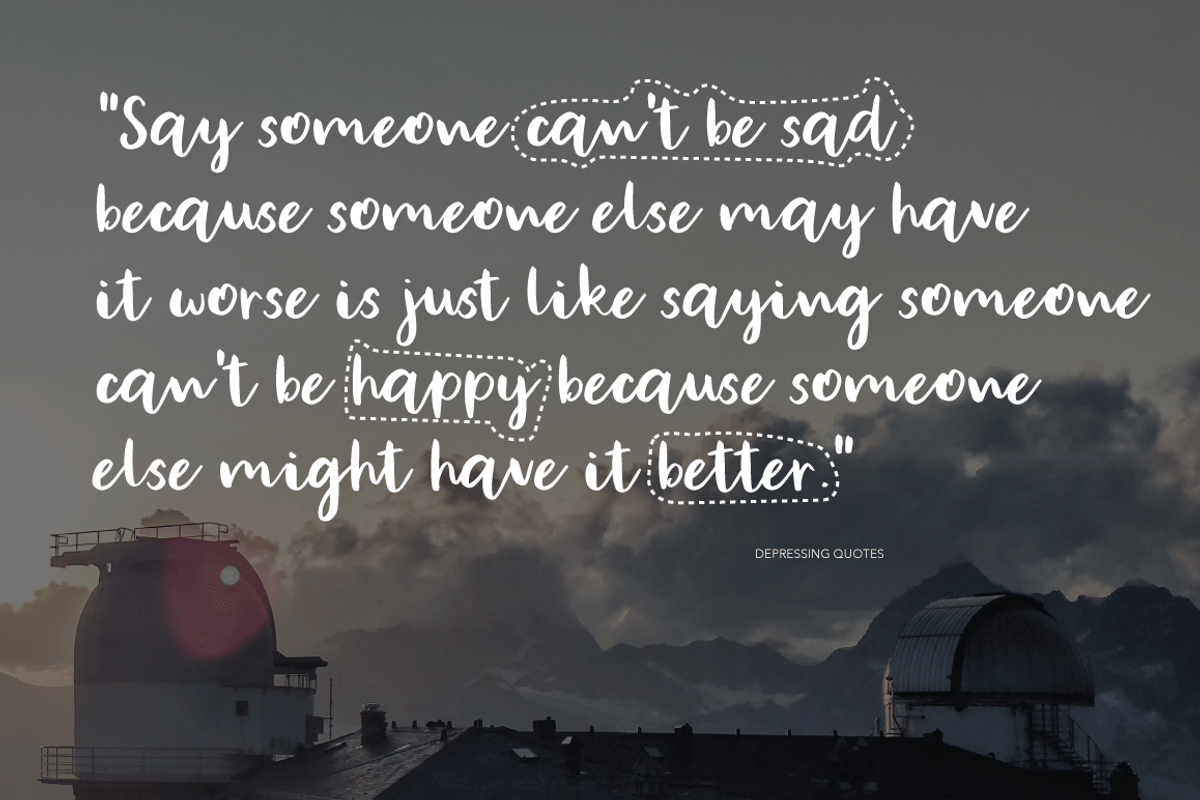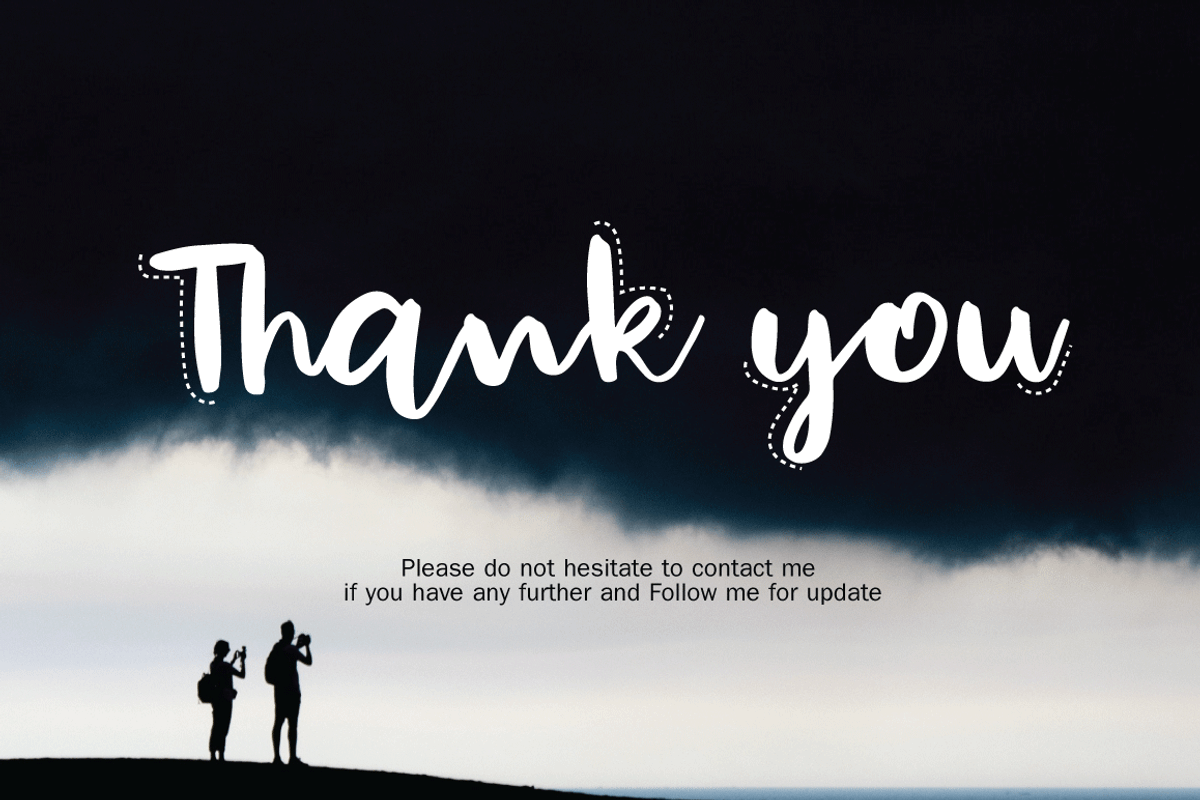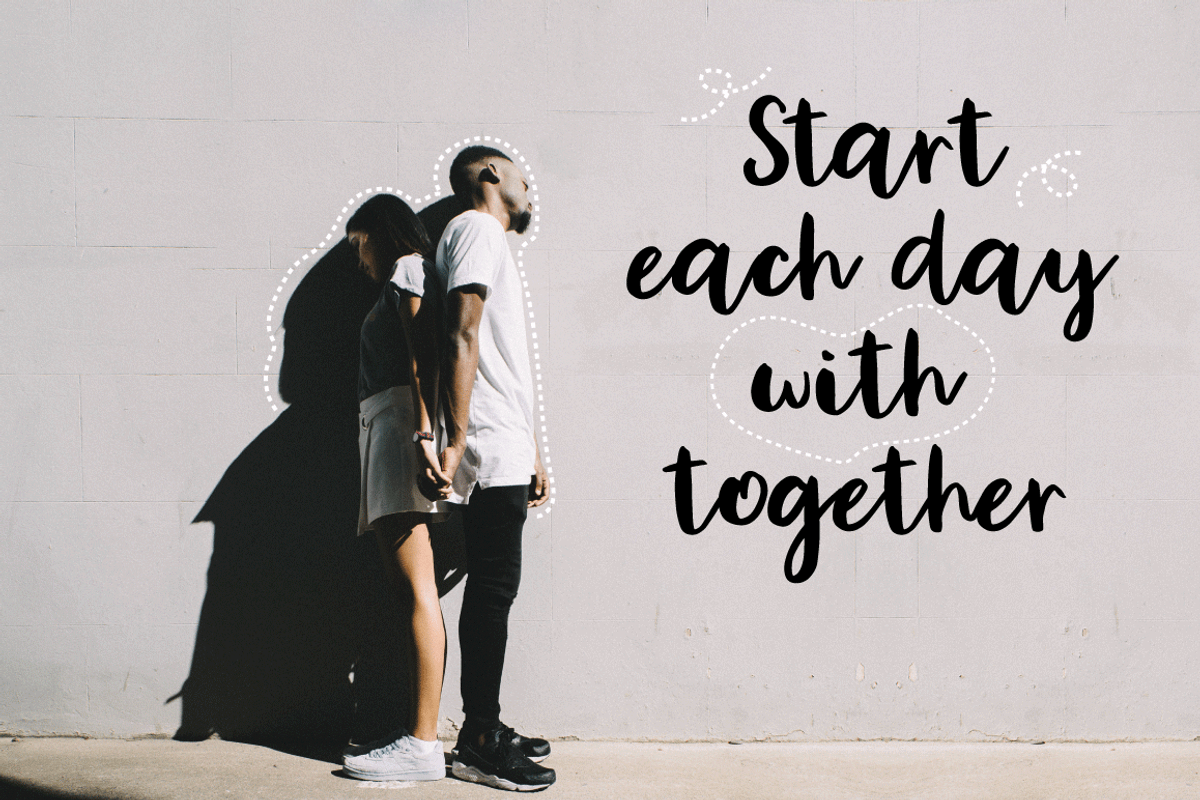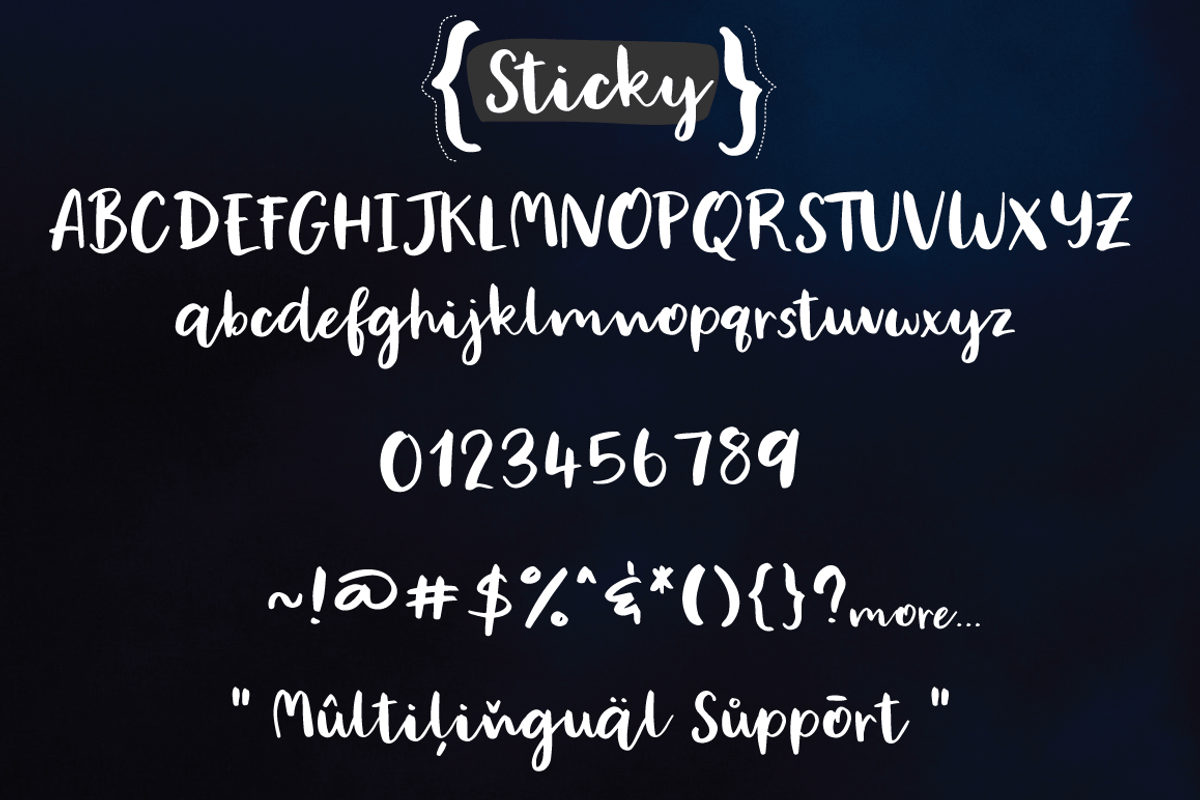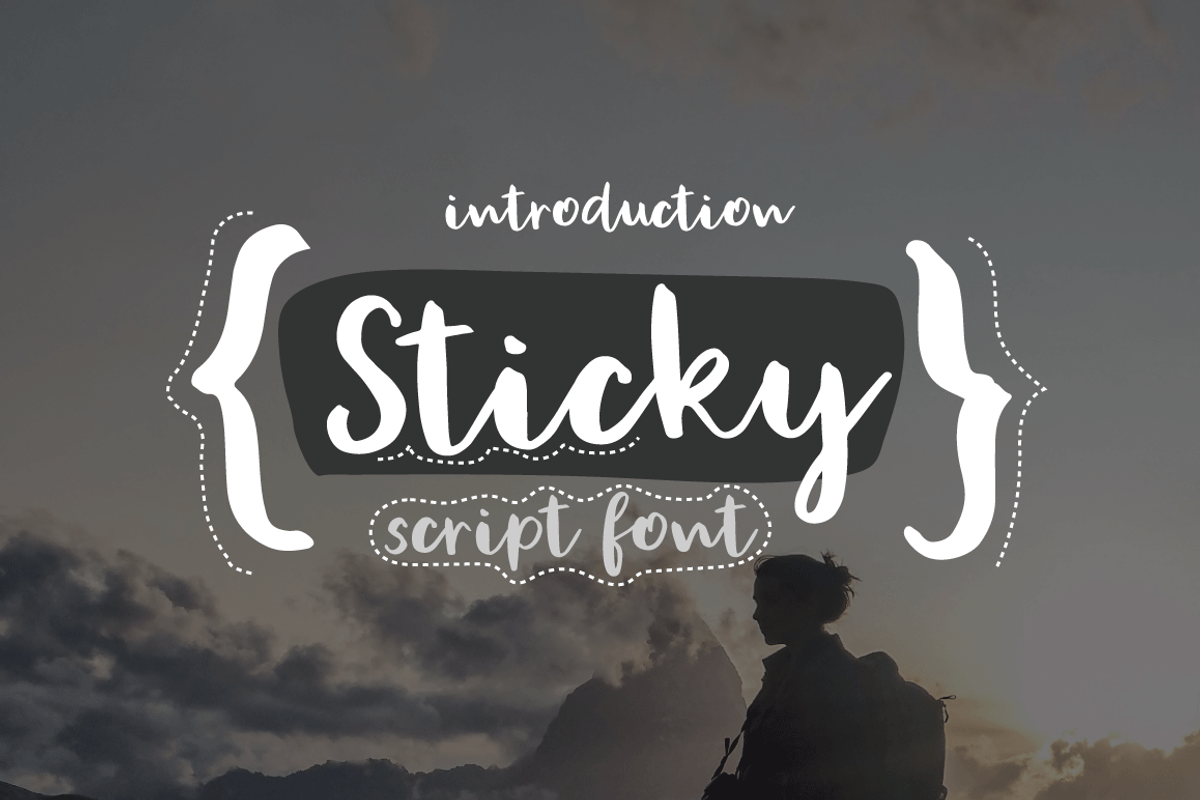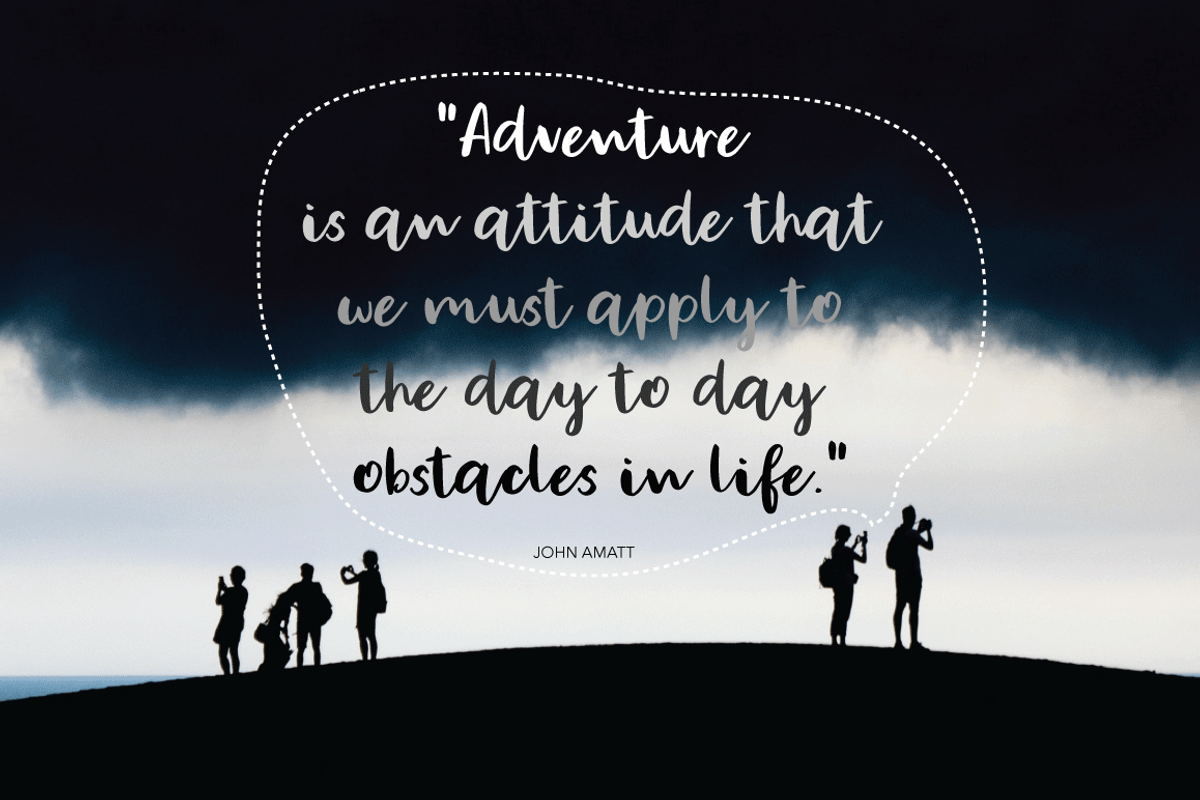
New! Sticky | script font
Sticky it's handwritten modern script font.
The font design is a clean and simple font which perfect for every project, wedding invitation or your blog. Also with their help, you can create a logo or beautiful frame for your home. Or just use for your small business, book covers, stationery and more.
multilingual support with accented characters for international check it, to be sure, that it supports your language, type it into the box below